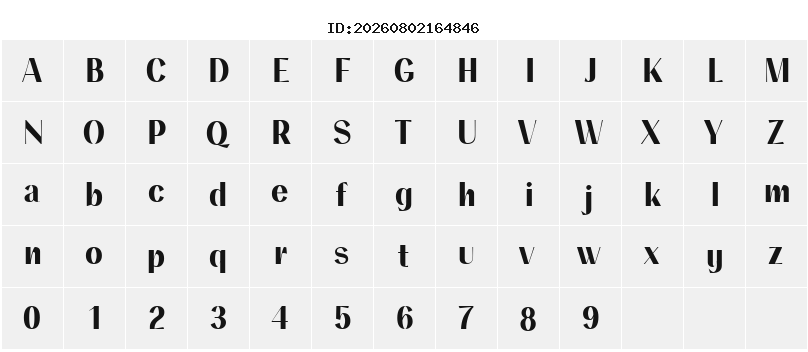
Numskill Preview
• Font Name: Numskill
• Full Font Name: Numskill
About Numskill.ttf
Numskill.ttf is a modern, elegant sans-serif font designed for ultimate readability and visual harmony. Perfect for branding, headlines, web design, and print materials.